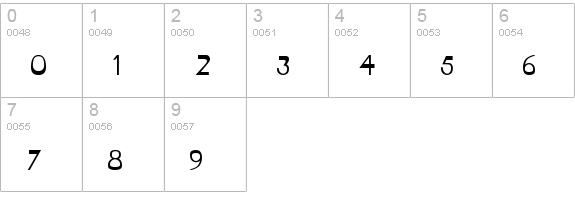
Tentakel font is a unique and captivating typeface that will surely make your designs stand out. Inspired by the fluid movements of underwater creatures, this font features elegant curves and intricate details that will bring a touch of sophistication to any project. Whether you are designing a logo, poster, or website, Tentakel font will add a touch of creativity and style. Best of all, Tentakel font is completely free to download at FontsMarket.com. This means you can easily access this stunning font and use it in your projects without any cost. Don't miss out on the opportunity to enhance your designs with the beauty of Tentakel font. Download it today and let your creativity flow!